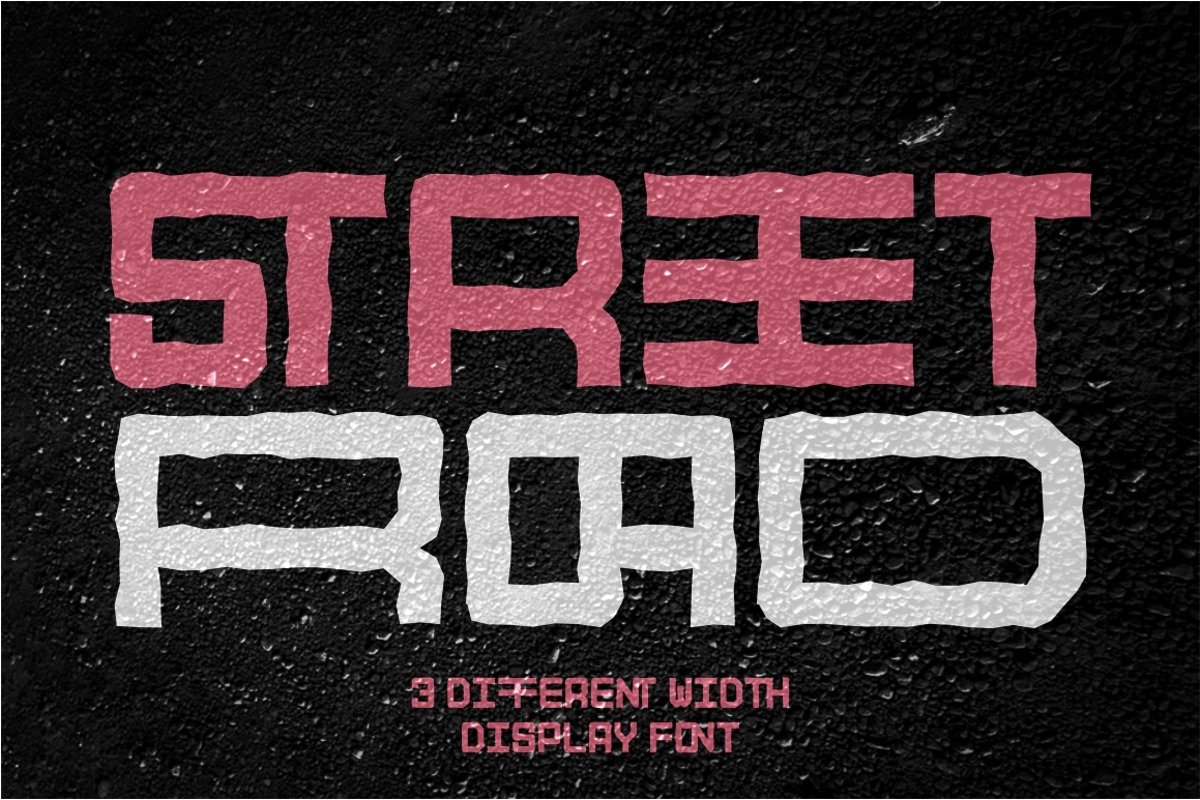
Introducing STREET ROAD, a display font has 3 different width types (as alternates). This font has two styles : rough and clean. And there are also lots of ligature that will make this font more unique. STREET ROAD is perfect for branding design, logo, posters, apparel, for logotype, website header, fashion design and any more.To access the alternate glyphs, you need a program that supports OpenType features such as Adobe Illustrator CS, Adobe Photoshop CC, Adobe Indesign and Corel Draw. In Zip Package : - STREET ROAD otf - STREET ROAD ttf - STREET ROAD woff - STREET ROAD Clean otf - STREET ROAD Clean ttf - STREET ROAD Clean woff Comes with feature : - Uppercase - Lowercase - Number, Punctuation And Symbols - Alternate If you have any questions, feedback or comments, please feel free to send me a PM Happy Creating! Thanks!PutraCetol Design Studio